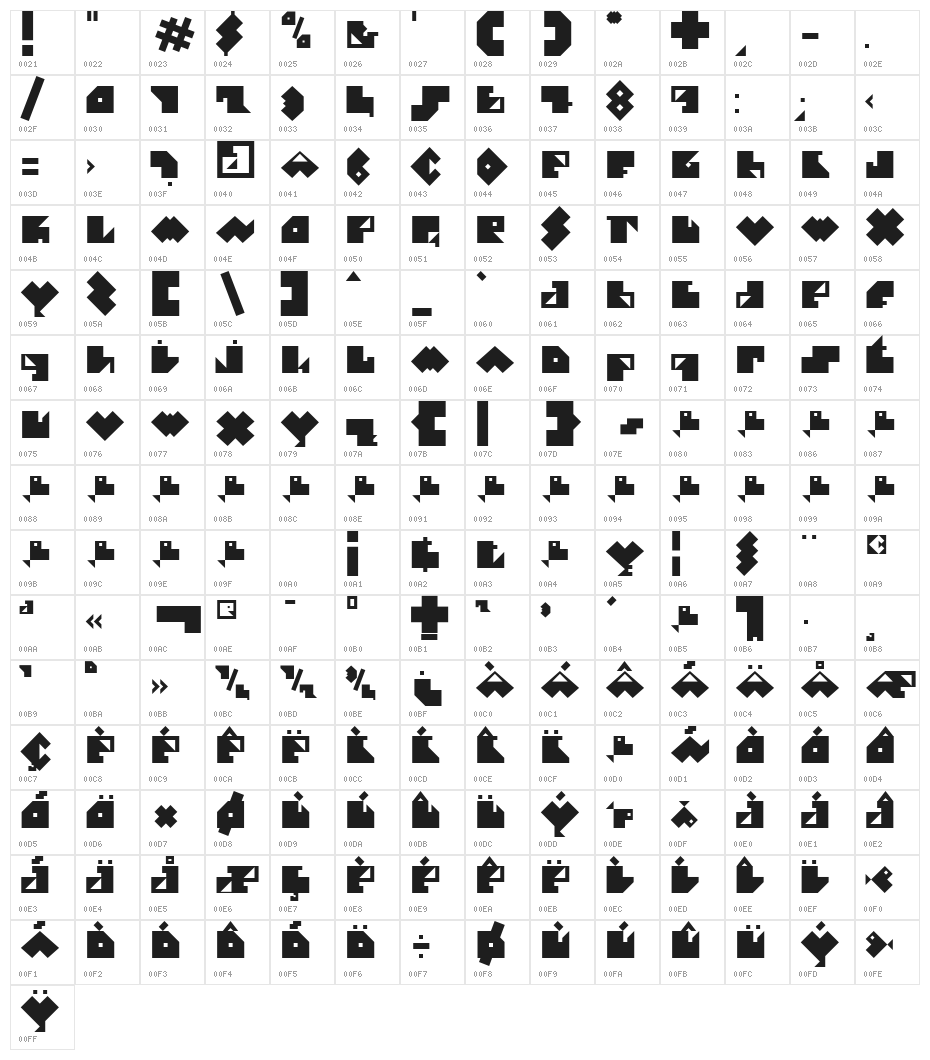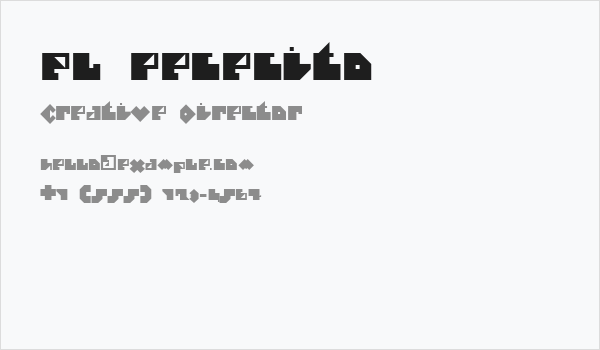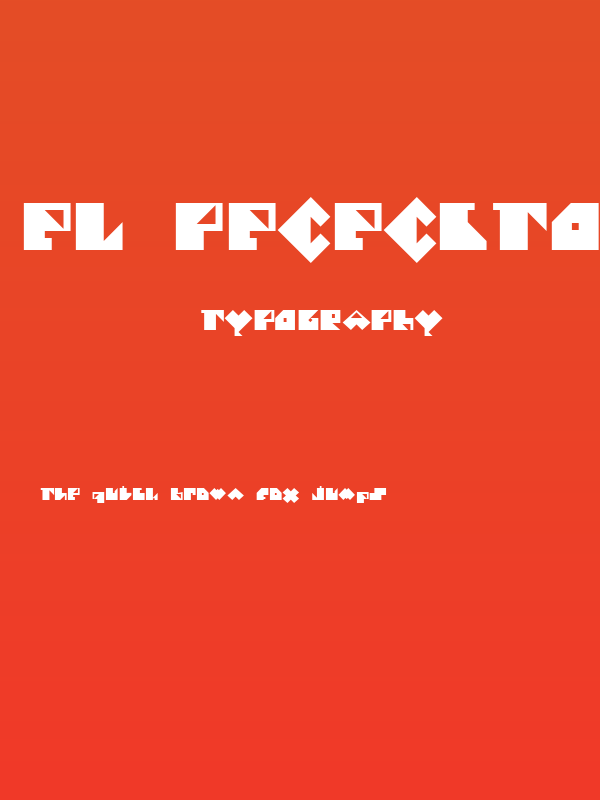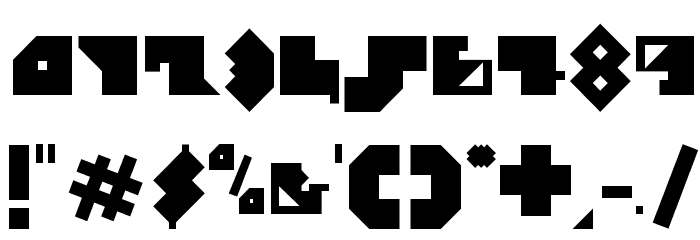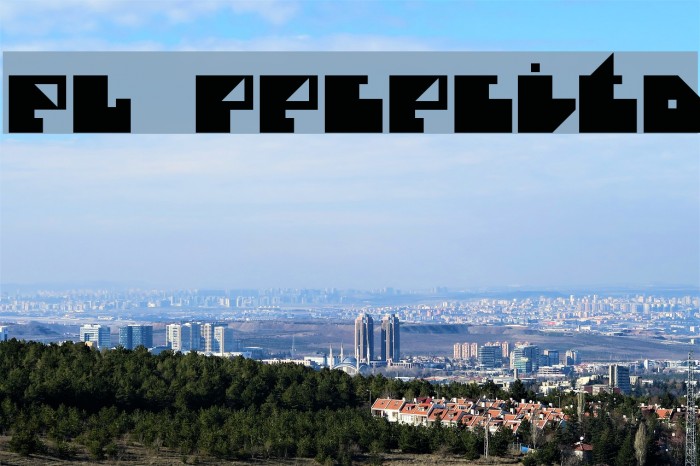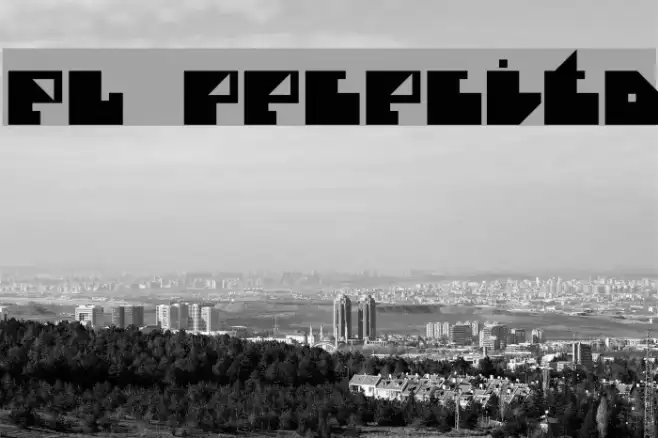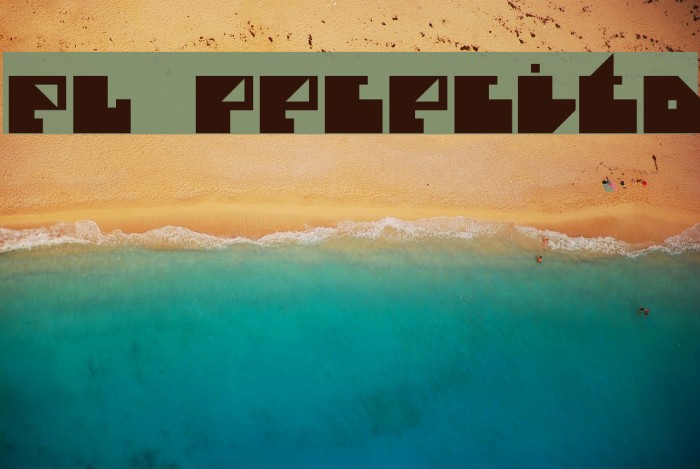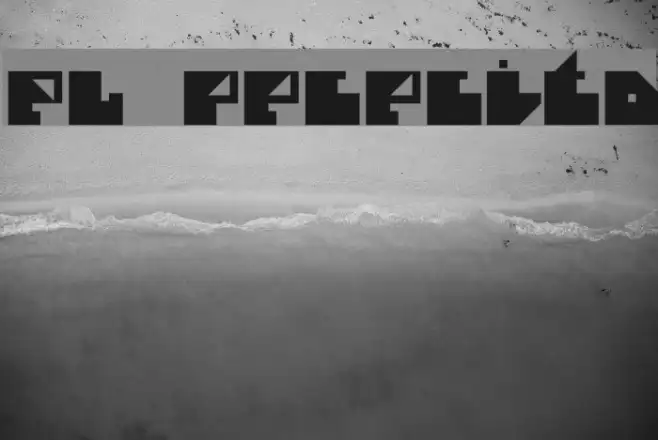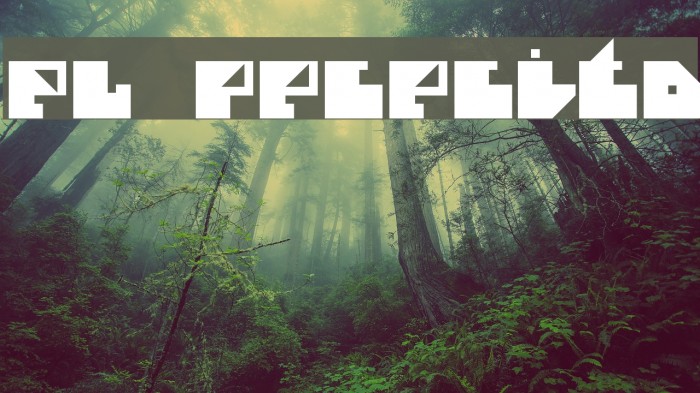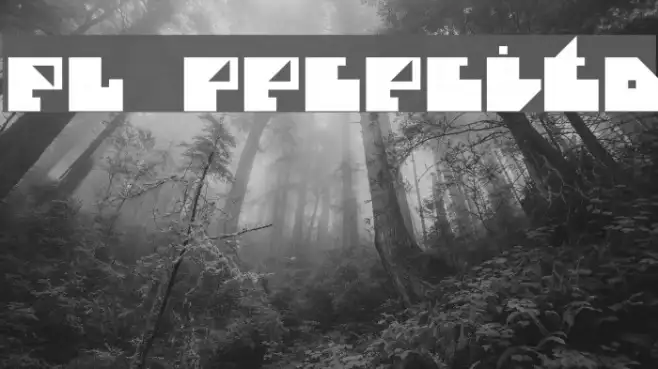
El Pececito Font
El Pececito Description
This font features a bold, geometric design with a strong emphasis on angular shapes and sharp edges. The characters are constructed using a series of triangles and rectangles, creating a highly stylized and modern appearance. The uppercase and lowercase letters maintain a consistent blocky form, while the numbers and special characters follow the same geometric theme. The font's unique style makes it stand out, offering a futuristic and edgy look that is both eye-catching and memorable.
| Proposed Projects | Ideal for projects needing a futuristic or tech-inspired aesthetic, such as video game titles, sci-fi movie posters, or modern branding. |